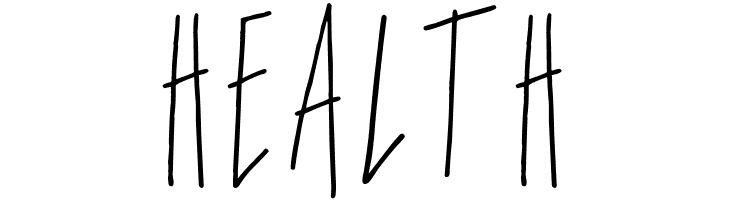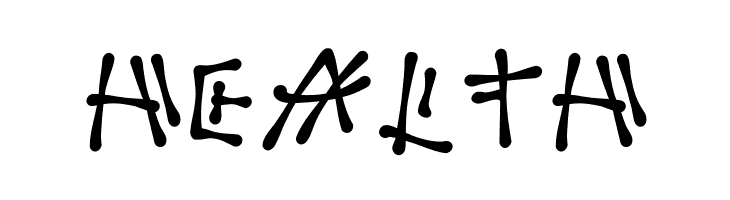
( Malvolio )
A playful, crayon-like font with a hand-drawn, textured appearance.
( Måns Grebäck - www.mansgreback.com )
An elegant, decorative script font with thin, flowing lines and intricate swirls.
( Pointlab Studio - creativemarket.com/pointlab )
A graceful, handwritten script font with elegant curves and a calligraphic style.
( Rometheme - Yahdi Kumala - creativemarket.com/Rometheme?u=Rometheme )
An elegant script font with flowing, ornate cursive letters and intricate swashes.
( frankvrank )
A hand-drawn, sketch-like font with thin, uneven strokes and a creative flair.
A playful, whimsical handwritten font with tall, narrow letters and a casual style.
( Aldus )
An ornate, decorative font with intricate floral motifs in each letter.
( Font Environment - www.fontenvironment.com/ )
A calligraphic mirror writing font with elegant curves and historical charm.
( Font Monkey - www.fontmonkey.com )
A playful, hand-drawn font with quirky, animated strokes.
( London's Letters - www.londonsletters.com/ )
A decorative font with characters integrated into elephant motifs.